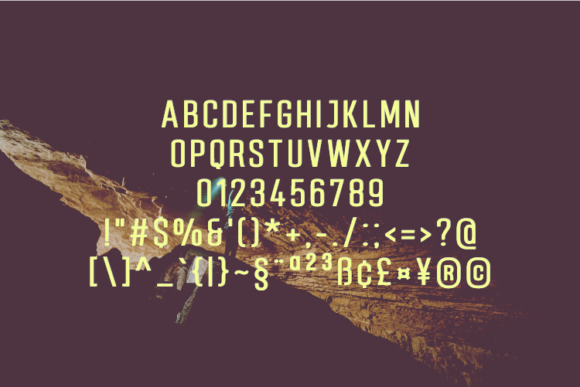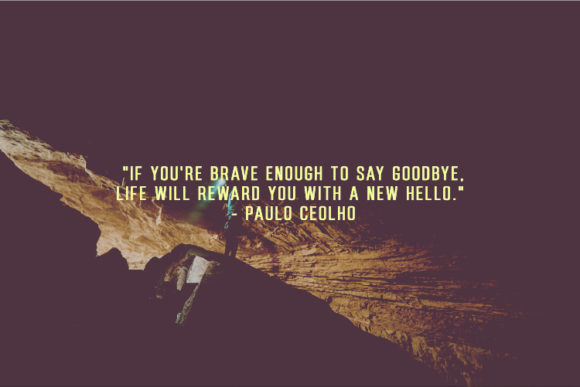
Introduction to Preditch Font
Do you remember the moment when a perfect font made your design come alive? For me, it was the time I stumbled upon a sleek sans serif font that elevated my entire creative project. The moment I saw it, I knew I had to use it – and that’s when I discovered the Preditch Font.
As a valuable design resource, the Preditch Font is perfect for designers looking to add a touch of sophistication to their work. With its neat and beautiful arrangement of letters, this typeface will look outstanding in both formal and non-formal designs. Whether you’re working on a high-quality logo, a creative project, or just need a font for a transparent background, Preditch Font is an excellent choice.
Key Features of Preditch Font
- High-quality design resource ideal for creative projects and professional use.
- Unique, modern design aesthetic, making it perfect for branding, logos, and other creative applications.
- Supports multiple languages, ensuring the font’s versatility and usability across various design projects.
Honest Review: Preditch Font
As a designer, I’m always on the lookout for high-quality fonts to elevate my creative projects. The Preditch Font caught my eye, and I decided to give it a try. Here’s my honest review.
- Unique aesthetic: Preditch Font has a distinct, modern look that’s perfect for bold headlines and titles.
- High-quality design: The font is well-designed, with clear and readable characters that make it perfect for body text.
- Limited character set: The Preditch Font is a sans-serif font, which means it might not be suitable for projects that require a lot of italics or serif characters.
- Transparency issues: The font doesn’t support transparent backgrounds, which can be a limitation for designers who need to use it on transparent or gradient backgrounds.
Overall, I’m impressed with the Preditch Font. While it has some limitations, its unique aesthetic and high-quality design make it a valuable addition to any designer’s toolkit. If you’re looking for a modern, bold font for your creative project, Preditch Font is definitely worth checking out.
Tips for Getting the Most Out of Preditch Font
For the best results, use the Preditch Font on a transparent background and experiment with different font sizes and colors to achieve the desired effect.
The Preditch Font is ideal for creative projects that require a high-quality, modern font with a unique aesthetic. It’s perfect for branding, marketing materials, and digital designs.
Does the Preditch Font have a transparent background?
Yes, the Preditch Font has a transparent background, making it easy to use with images or other design elements. This feature allows for seamless integration with your design project and gives you more creative control.